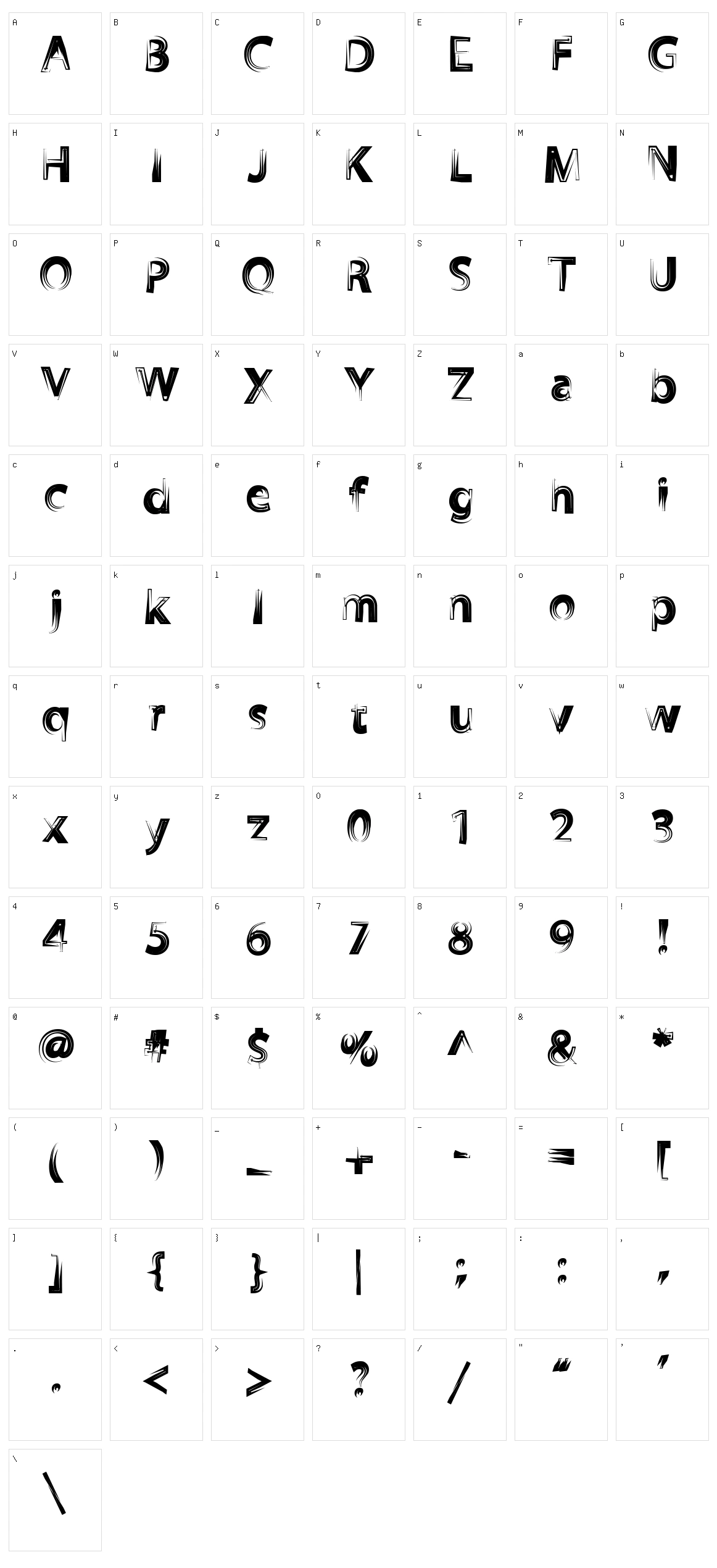
The free font Zooky Zooky is carefully designed by Canale Studio, Inc., showcasing a thoughtful balance of creativity and usability and falls under the Distorted font style. When you download the ZIP file, it contains only 57.11 KB of font files, making it lightweight and quick to download. Please review the license details below to understand permitted usage and distribution rights. If license information is not available, we recommend using this font for personal projects only or contacting the author directly for commercial usage permissions.